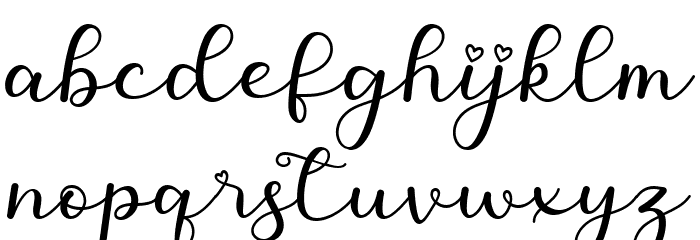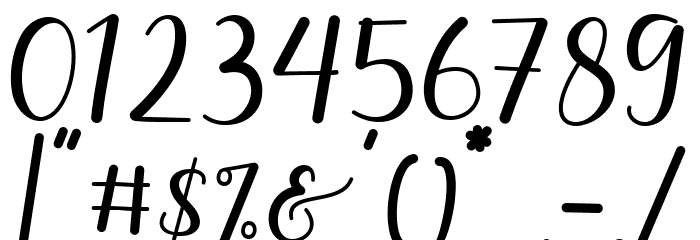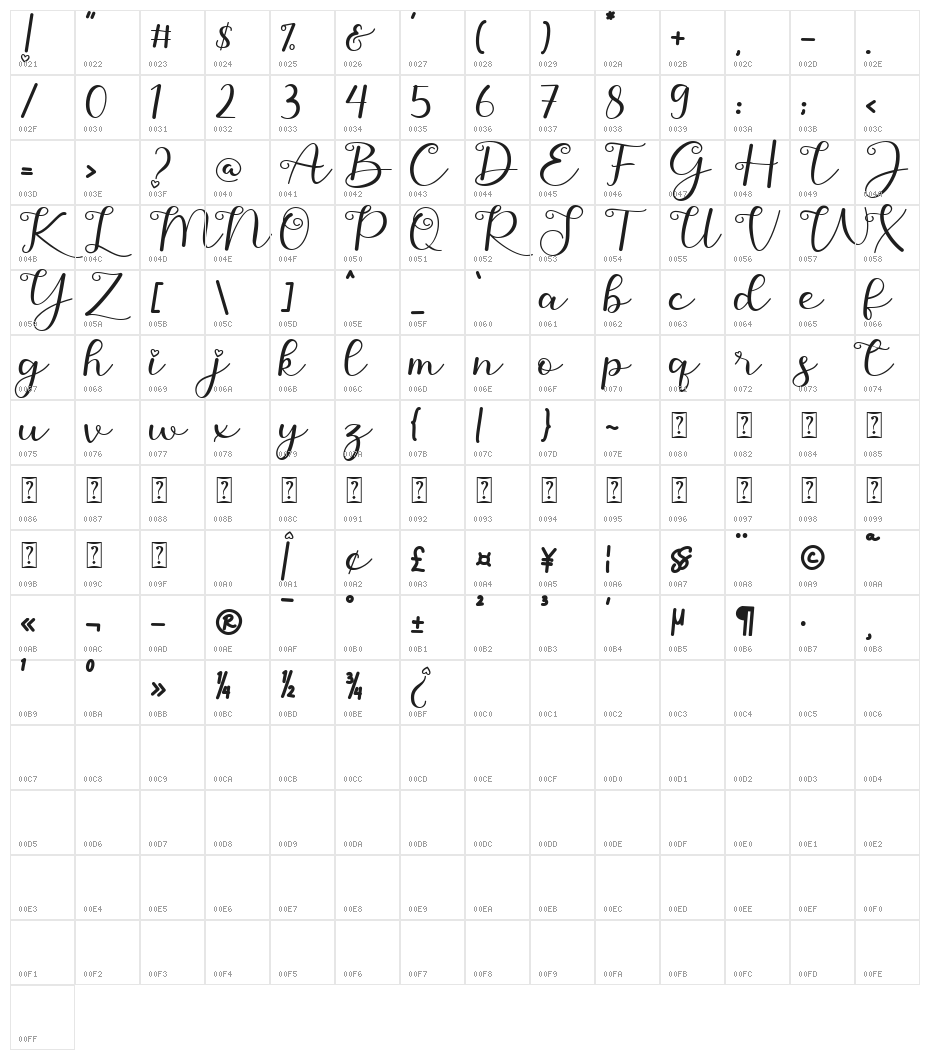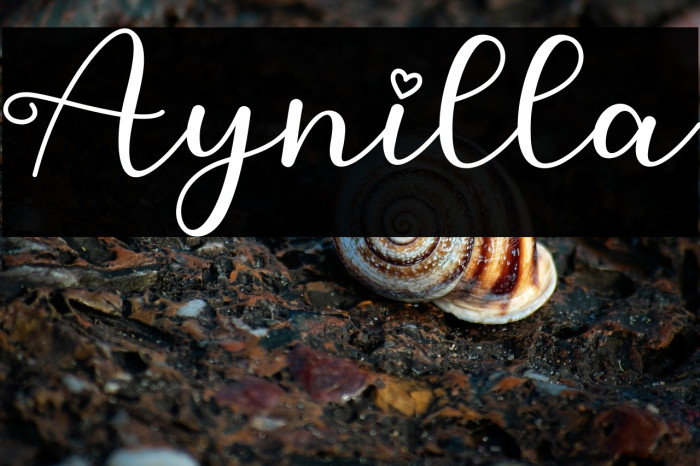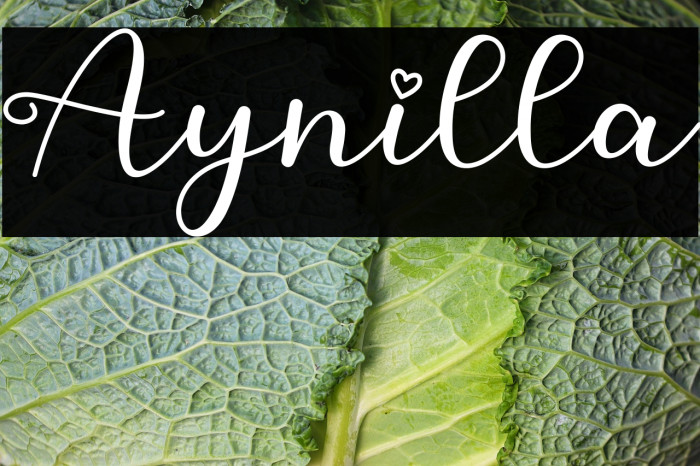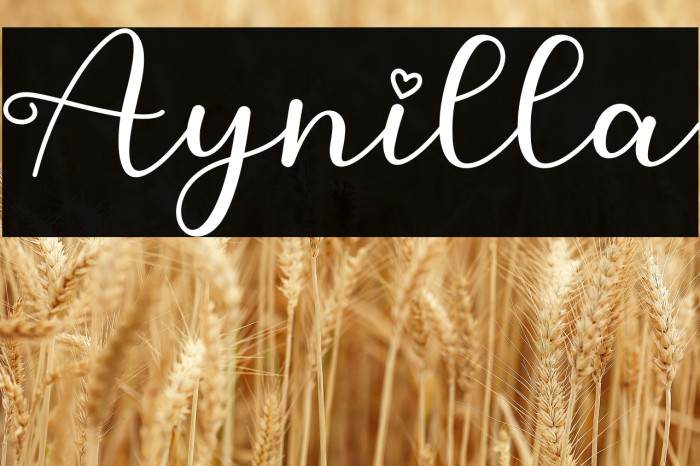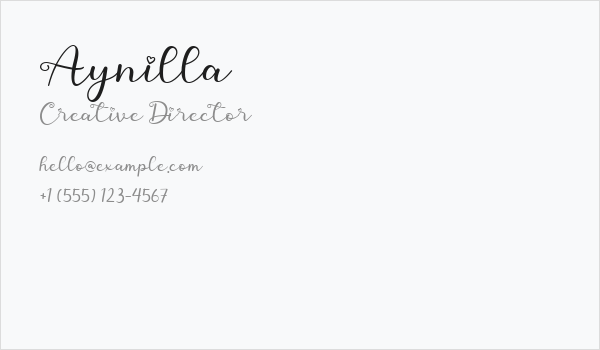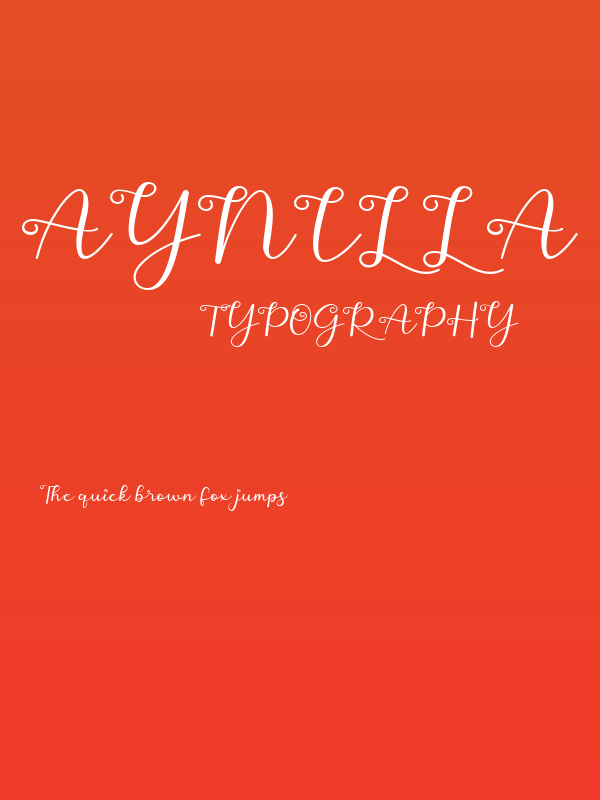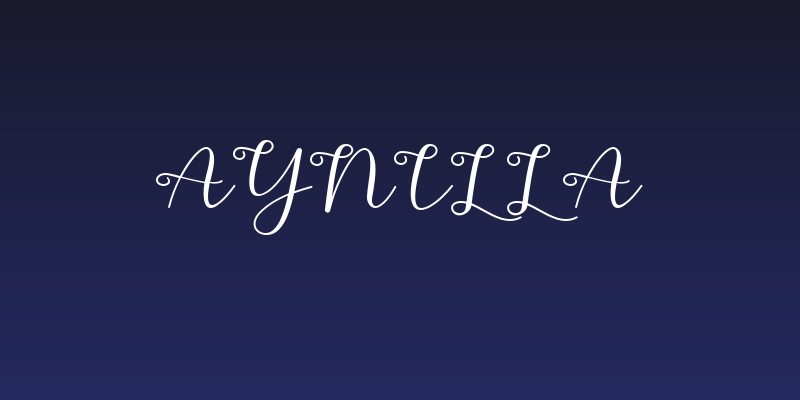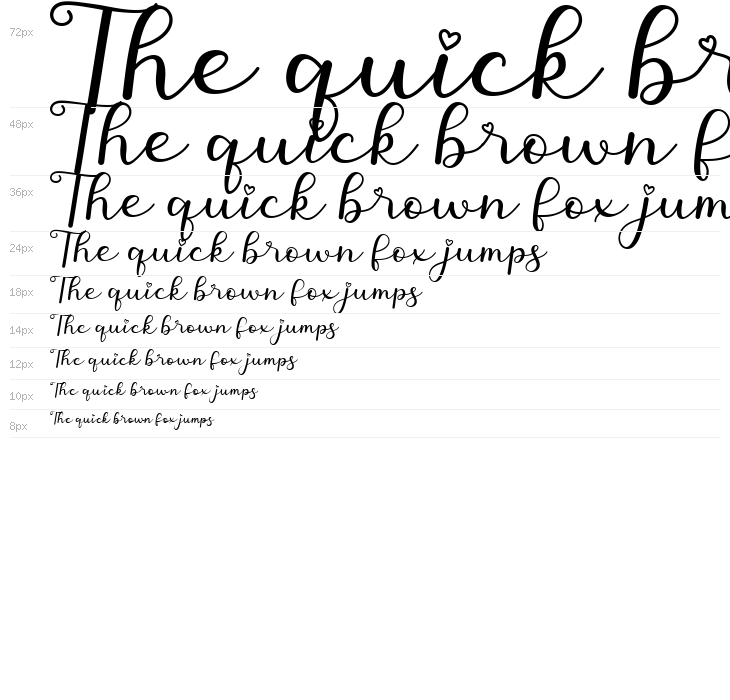
Aynilla Font
This font exudes a playful and whimsical charm, characterized by its flowing script style. The uppercase letters are elegantly looped, with some featuring unique swirls and curls that add a touch of sophistication. The lowercase letters continue this theme with smooth, rounded forms and occasional heart-shaped embellishments, particularly noticeable on the 'i' and 'j'. The numerals are bold and slightly slanted, maintaining the font's overall lively aesthetic. Special characters are creatively designed, with the ampersand and percentage symbols standing out due to their intricate detailing. This font is ideal for projects that require a personal and artistic touch, such as invitations, greeting cards, or branding for creative businesses.
A playful and whimsical script font with elegant loops and curls.
- Proposed Projects: Ideal for invitations, greeting cards, and creative branding.
- Use Case: Logos, Headlines, Decorative text